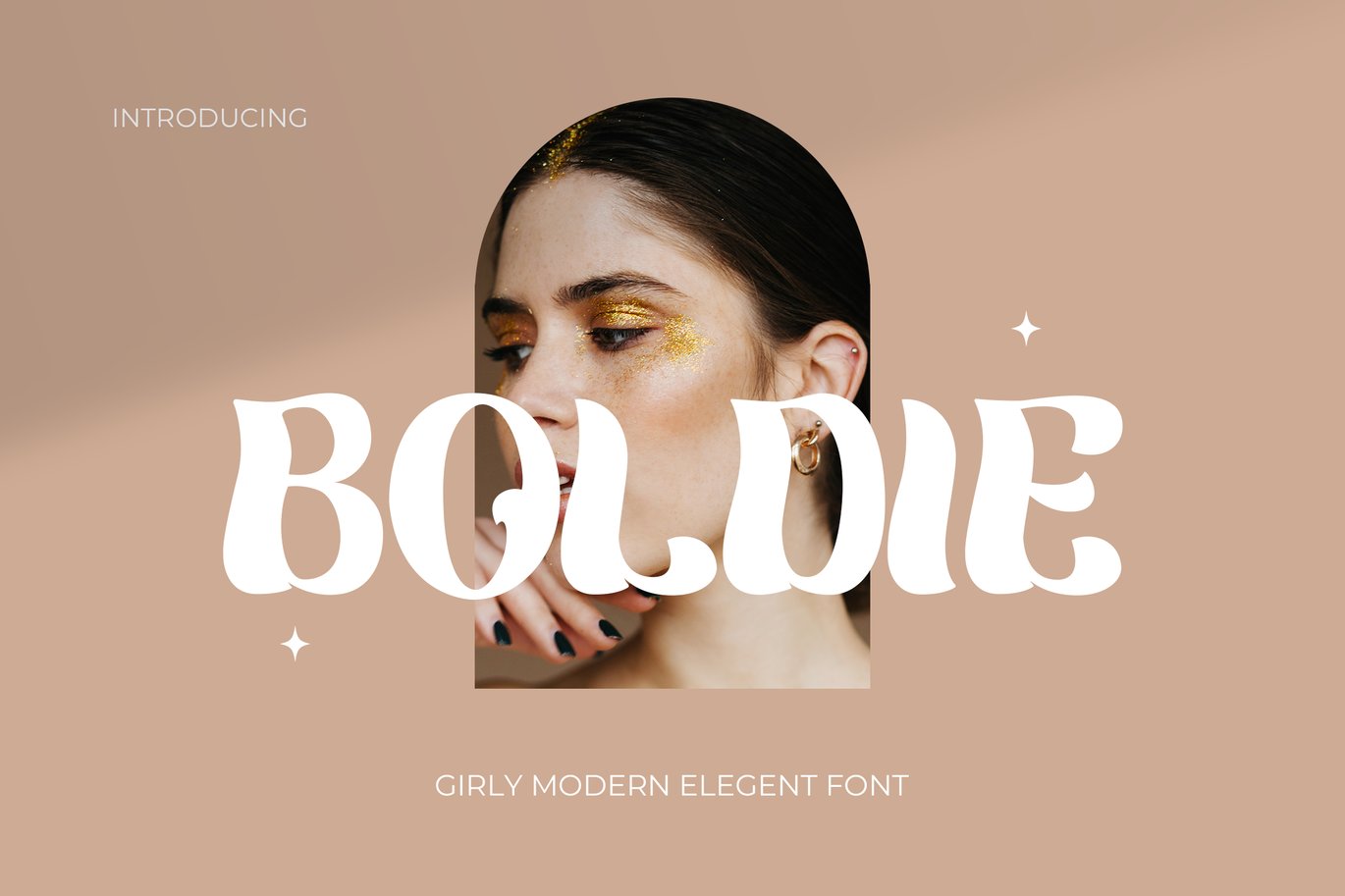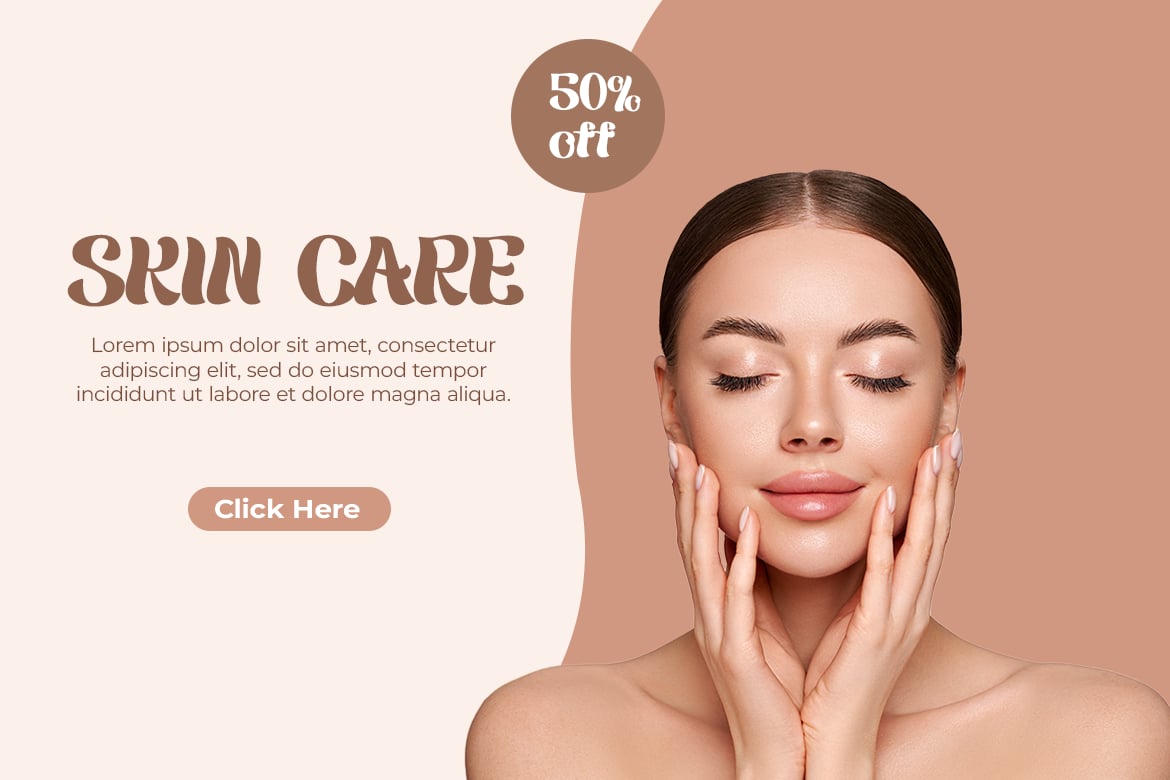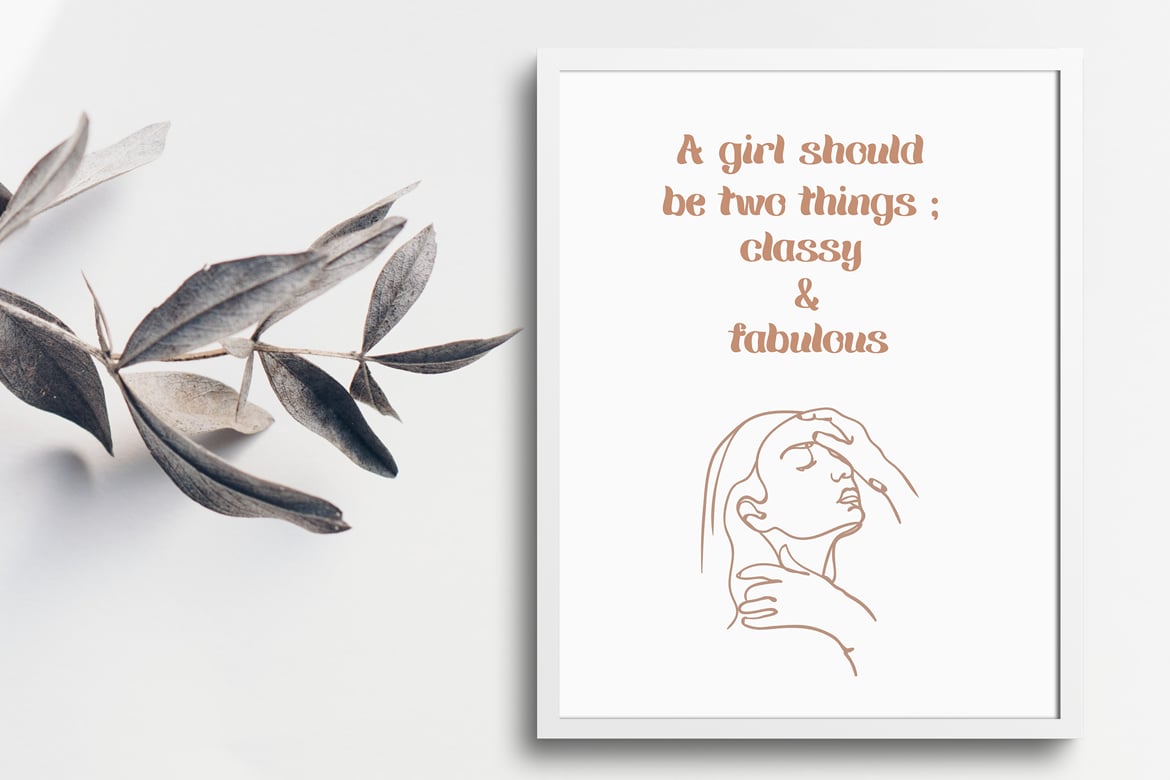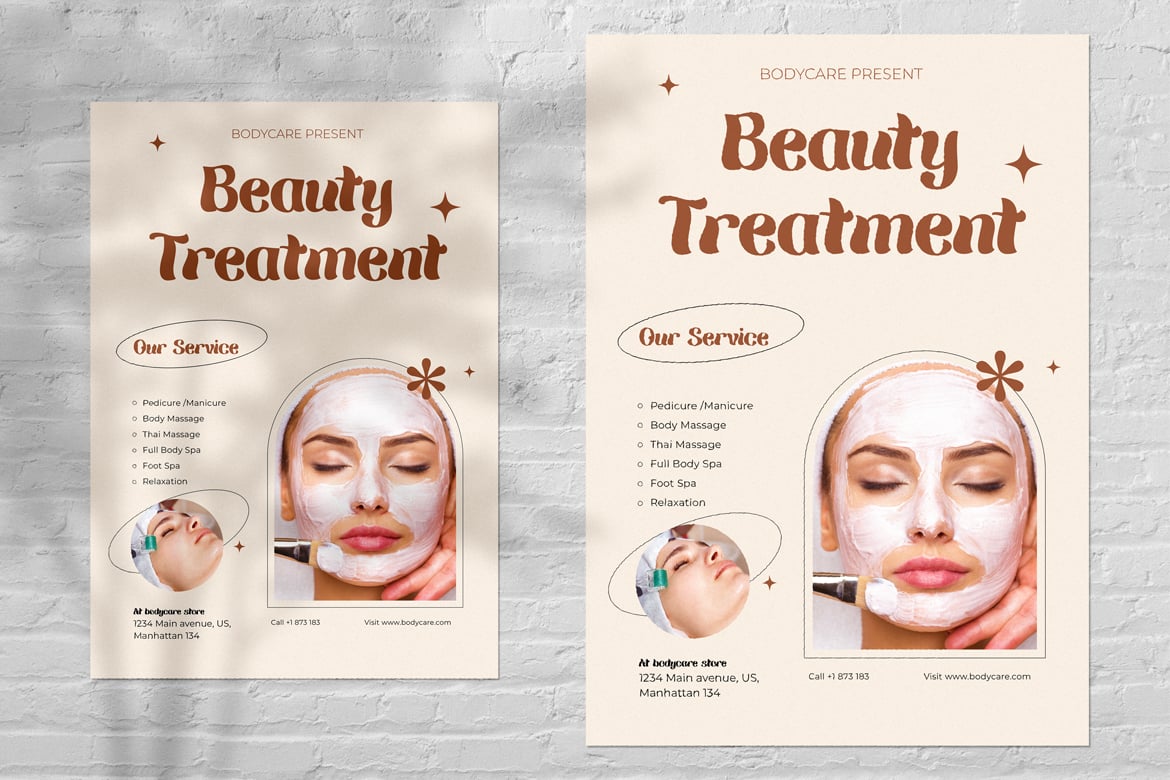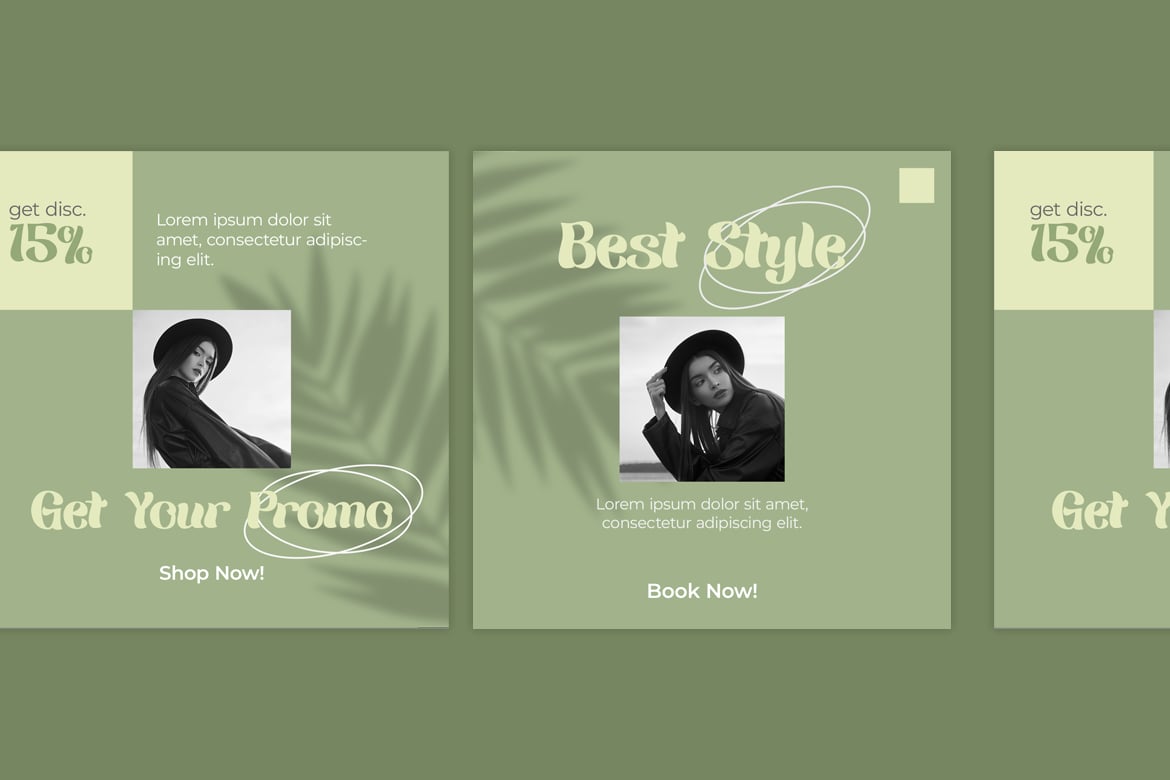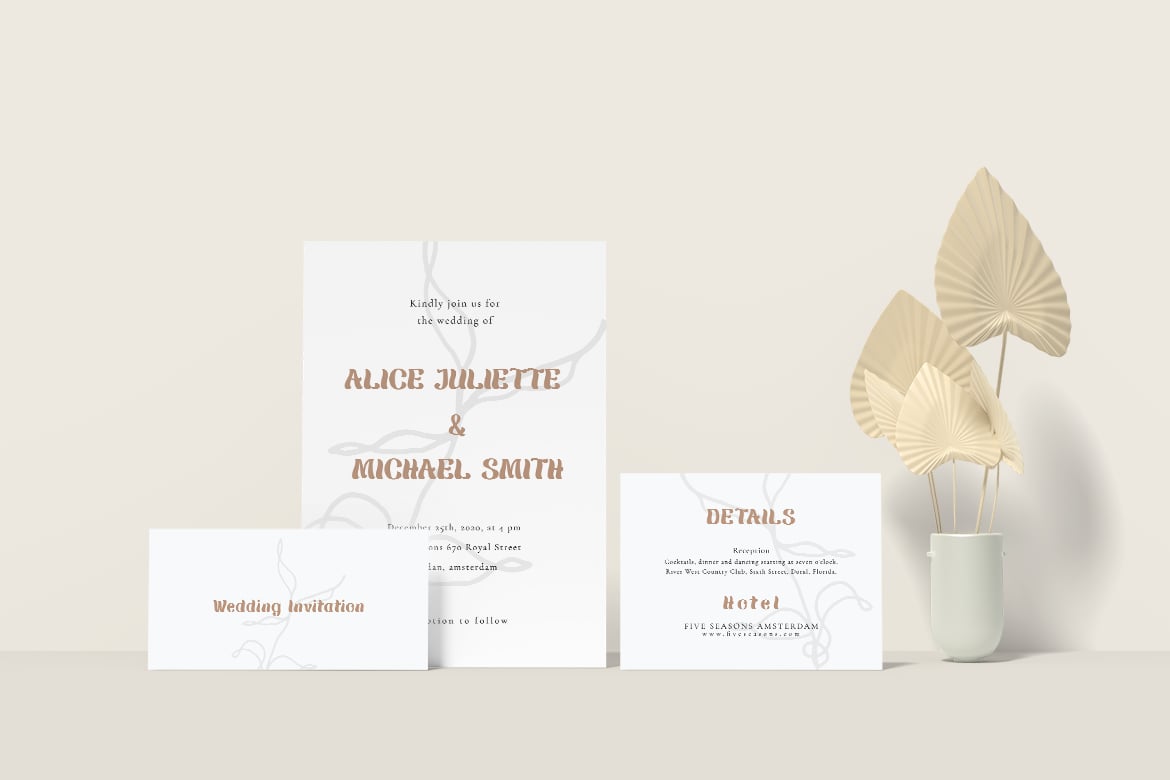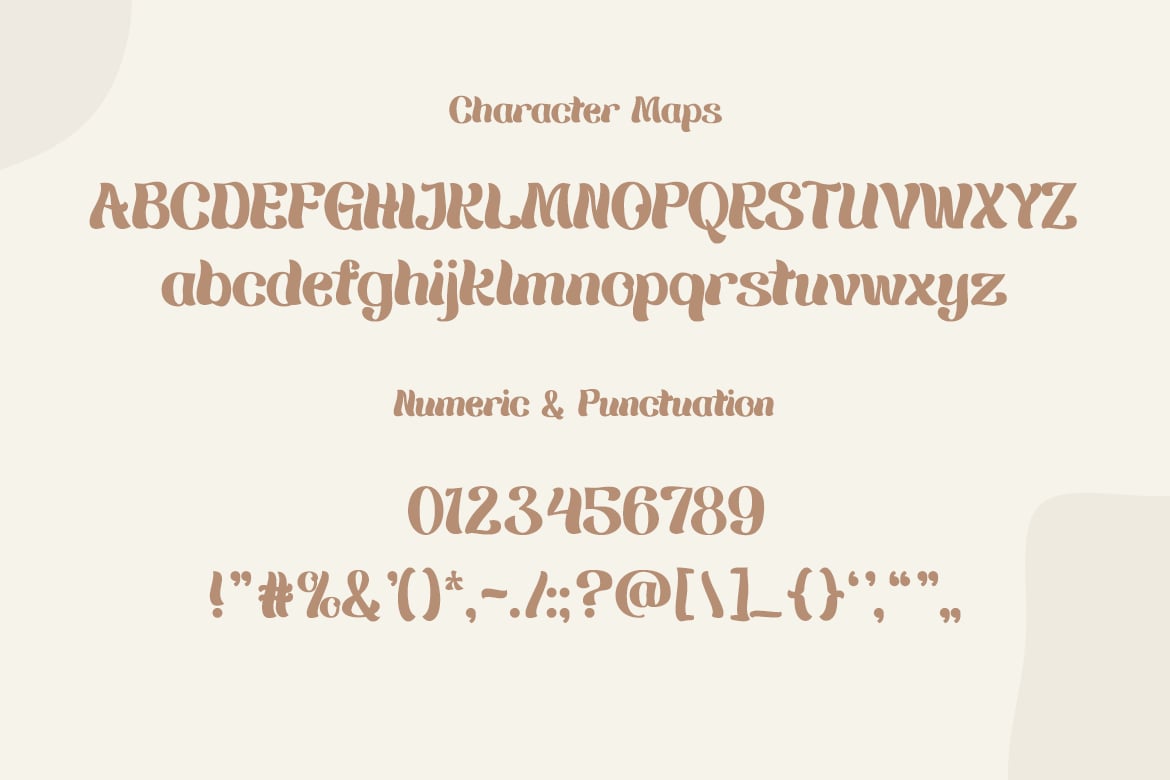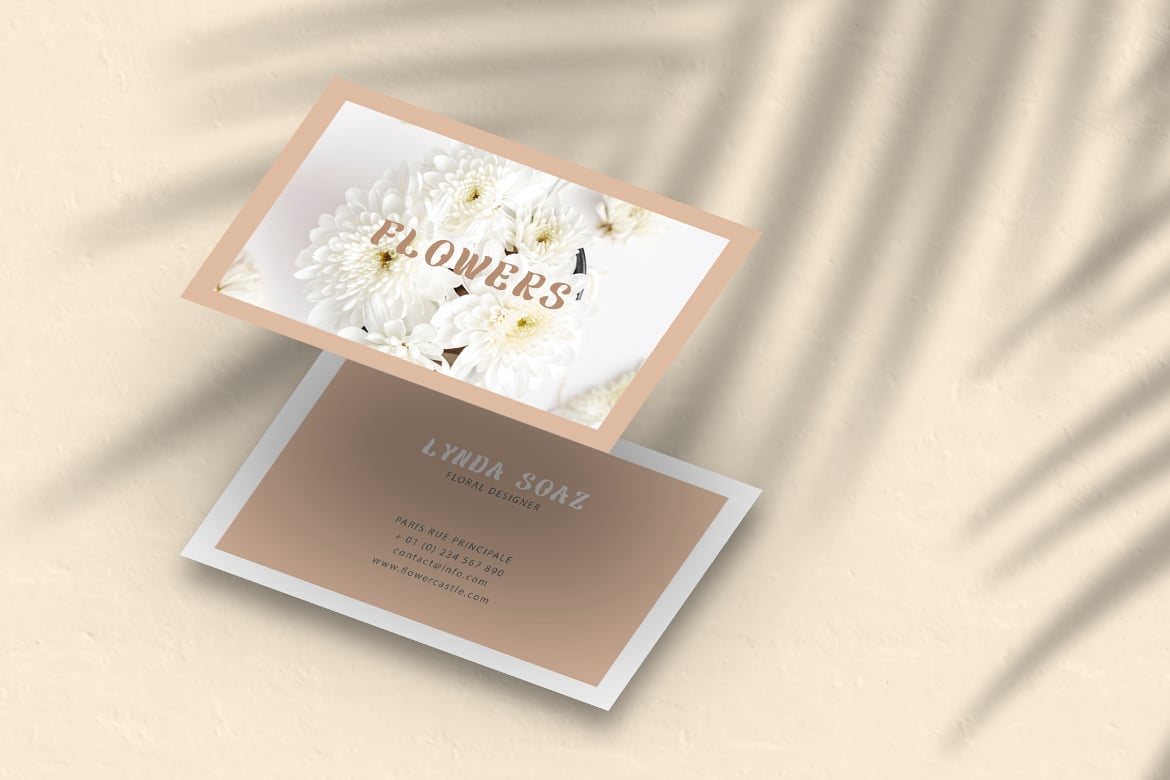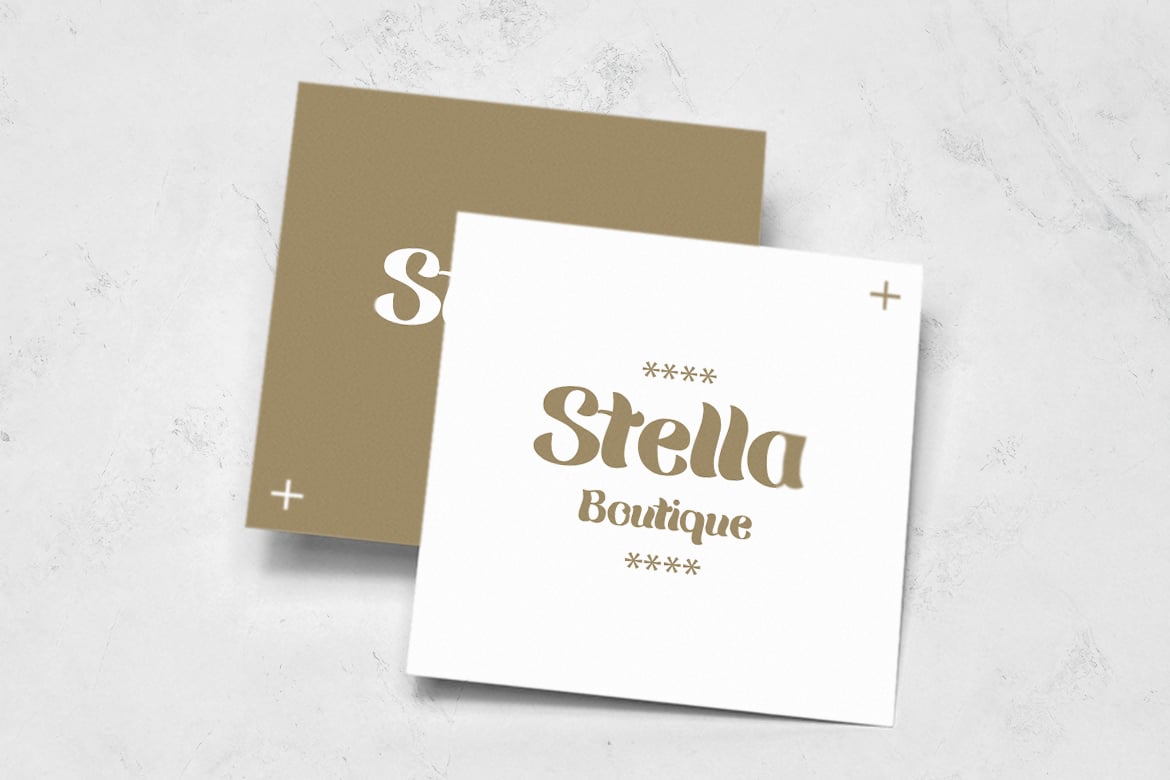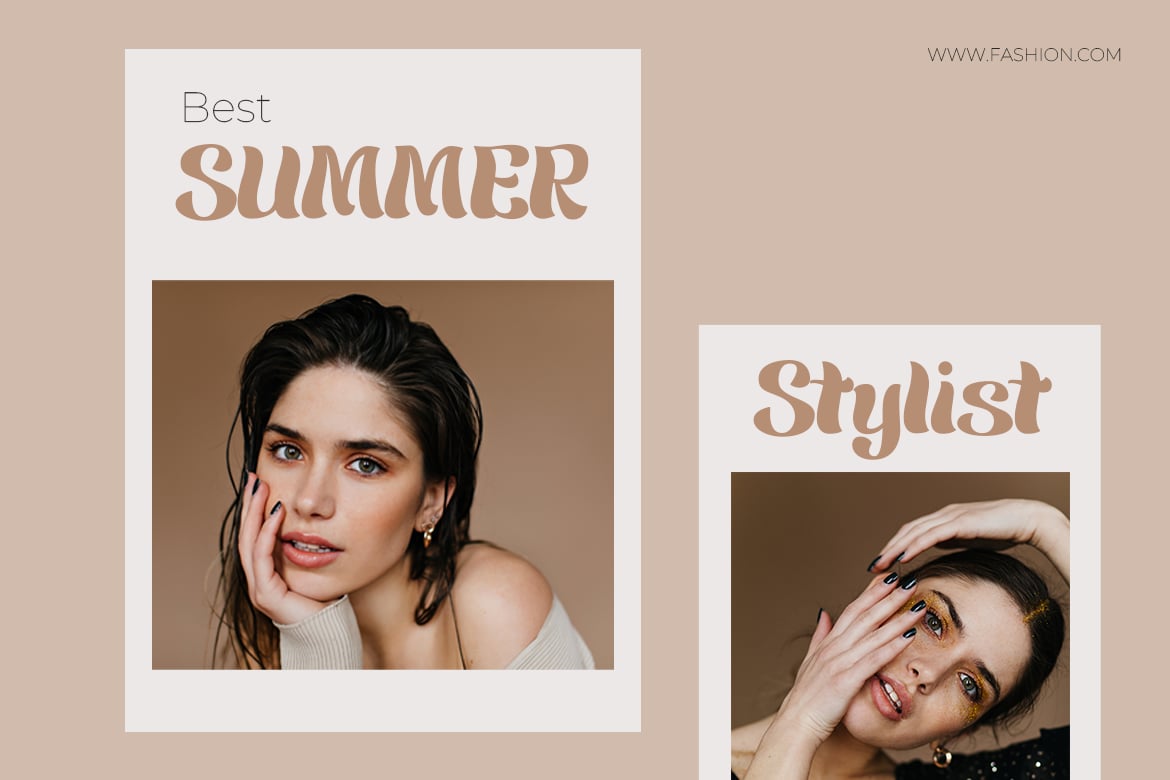
Modern Font – Boldie
Boldie is a modern, feminine display font characterized by its bold, curvy letterforms and elegant details. The combination of smooth curves and playful shapes makes it a perfect choice for projects that need a chic, stylish, and contemporary touch. The font’s sleek design ensures versatility across a wide range of feminine-themed design contexts, adding a graceful touch to any creative project.
Market Applications:
- Fashion Branding & Ads: Ideal for use in high-end fashion branding and advertisements where elegance and modernity are key.
- Beauty & Skin Care Packaging: Perfect for skincare and cosmetic product packaging that requires a feminine and luxurious feel.
- Social Media & Influencer Posts: Stand out with Boldie’s bold and stylish look on social media graphics, banners, and influencer campaigns.
- Wedding Invitations & Cards: Its elegant curves make Boldie an excellent choice for wedding stationery, invitations, and announcement cards.
- Lifestyle Magazines & Editorials: Add a modern, feminine flair to lifestyle magazines, online publications, and editorials aimed at a chic audience.